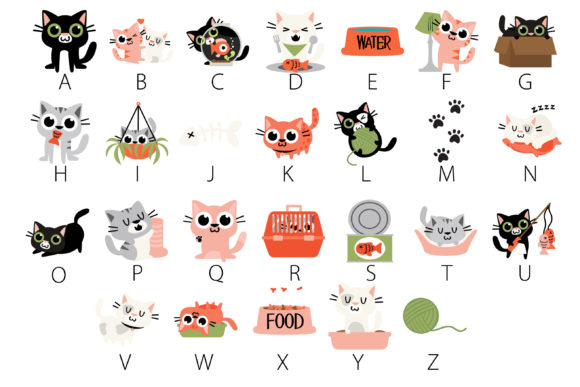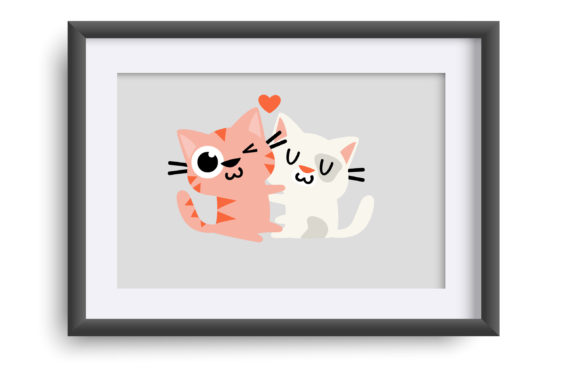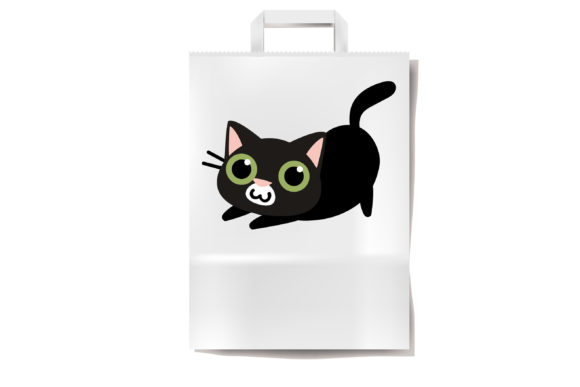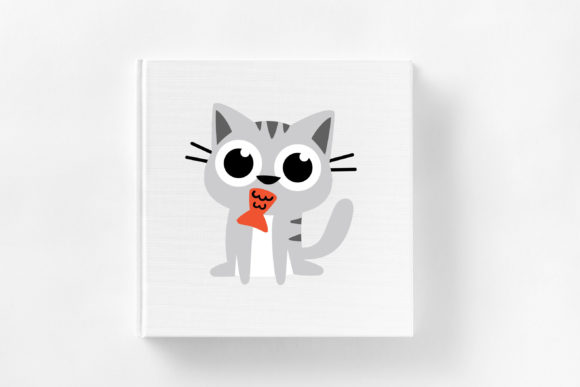
Catitude DB Font
The Catitude DB font is a delightful dingbat font that features cats engaged in various playful and restful activities. This full-color (SVG) font is designed to add a touch of feline charm to your designs, making it perfect for cat lovers, pet-related projects, or any design that calls for a whimsical and cat-themed element.
The Catitude DB font is a fantastic choice for a range of projects, including greeting cards, invitations, social media graphics, scrapbooking, and more. You can use the cat icons individually or combine them to create charming compositions. The font offers a variety of cat poses and activities, allowing you to express different moods and messages in your designs.
Let the Catitude DB font bring a sense of whimsy and playfulness to your projects. Whether you’re designing for a cat-themed event, creating promotional materials for a pet-related business, or simply want to add a touch of feline charm to your design, this dingbat font is sure to captivate cat lovers and add an element of fun to your creations.
Explore the playful world of Catitude DB font and let the adorable cat icons inspire your designs. With its full-color representation of cats at play and rest, this font allows you to incorporate the charm and joy of cats into your projects with ease. Enjoy creating delightful compositions that celebrate our feline friends and delight your audience.